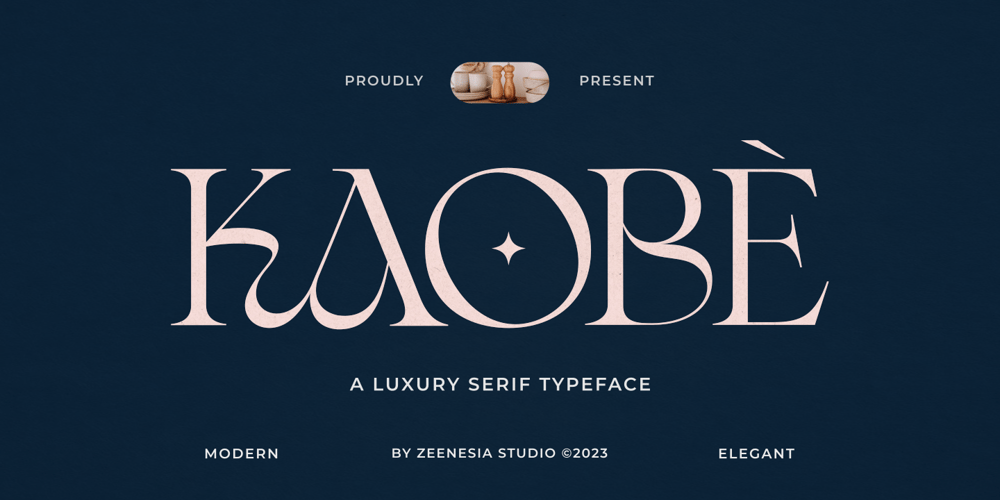
Kaobe Font Family was designed by Doni Purwoko and published by Zeenesia Studio. Kaobe contains 1 styles and family package options. Introducing KaobeKaobe is a luxury display font with serif style. It’s modern and classic font with a unique and deference look . Perfect if you need a dose of fun in your project. Perfect for editorial projects, Logo design, web font, clothing branding, product packaging, magazine headers, or simply as a stylish text overlay to any background image.We hope you enjoy the font, please feel free to comment if you have any thoughts or feedback.Thanks for purchasing and glad to help you!